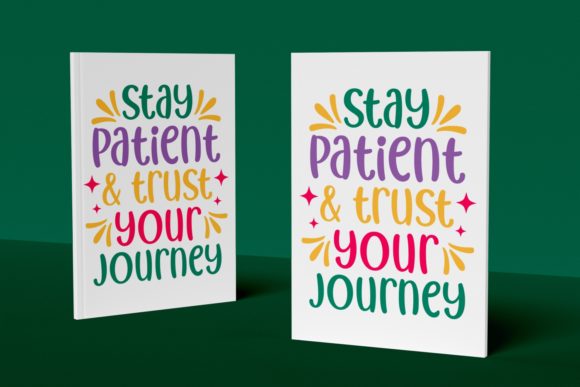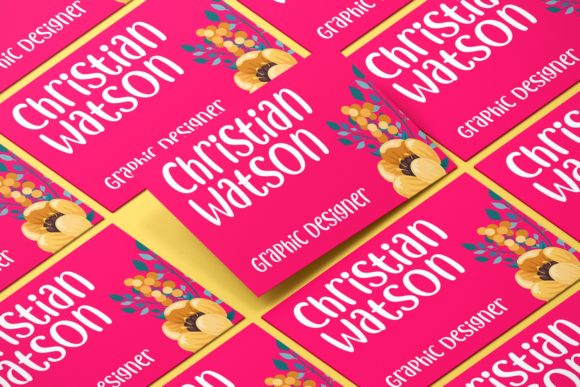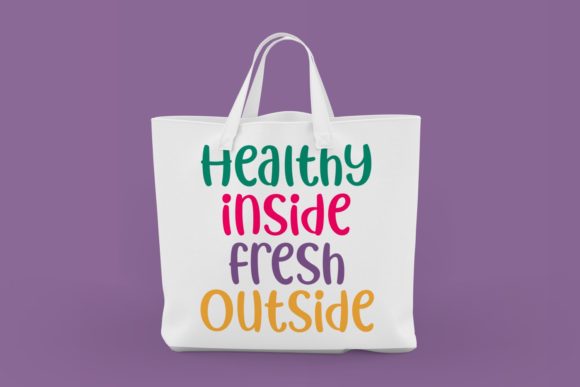
Introduction to Lovely Crafts Font
Remember that moment when you first stumbled upon a font that perfectly captured the essence of your creative project? For many designers, that moment is a game-changer. It’s the spark that sets their imagination ablaze and brings their ideas to life. For those who are about to experience that magic, we’re excited to introduce the Lovely Crafts Font – a playful and fun display font that embodies authenticity and joy.
Whether you’re working on a children’s activity or a school project, this font is sure to bring a smile to your face. Its high-quality design and transparent background make it the perfect design resource for any creative project. And the best part? It’s available for a free download, making it an invaluable addition to your design arsenal.
Key Features of Lovely Crafts Font
- High-quality design resource ideal for creative projects, including scrapbooking, card making, and digital art.
- Unique, hand-drawn style with a transparent background, making it perfect for use on any design surface.
- Perfect for designers, crafters, and artists looking for a high-quality, unique font to add a personal touch to their creative projects.
Honest Review: Lovely Crafts Font
One of the things that stood out to me about this font is its high quality. The characters are well-designed and look great on both a transparent background and on solid colors. This makes it perfect for creative projects where you want a clean and elegant look.
Here are some things that work well with the Lovely Crafts Font: ✨
- Wide range of characters, including numbers and symbols
- Easy to read on both small and large scales
However, there are a few limitations to keep in mind: ⚠️
- Only available in one style, so you can’t mix and match different font weights
- No bold or italic versions available
Overall, I’m really impressed with the Lovely Crafts Font. It’s a great design resource that’s perfect for creative projects where you want a clean and elegant look. I’d definitely recommend it to other designers.
Tips for Getting the Most Out of Lovely Crafts Font
To get the most out of the Lovely Crafts Font, use it in conjunction with high-quality images and design elements. Experiment with different font sizes, colors, and styles to create a unique and eye-catching design. The font’s transparent background also allows for seamless integration with other design elements.
The Lovely Crafts Font is ideal for a variety of creative projects, including business presentations, personal invitations, and social media graphics. Its elegant and sophisticated design makes it perfect for wedding invitations, baby shower invitations, and other special occasion designs.